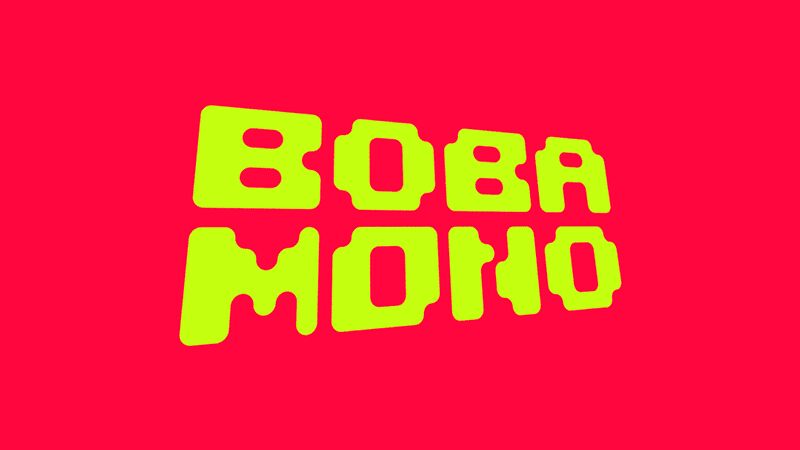
Boba Mono, crafted by renowned designer Matt Wilson, is a captivating display font with a digital touch. Its bold weight and extra-expanded width make it perfect for projects that demand attention and impact. Whether it's eye-catching logos, futuristic video game titles, or tech-themed branding materials, Boba Mono elevates any creative venture into the stunning digital realm. Embrace the power of this unique typeface to captivate audiences and leave a lasting impression.
Includes A-Z in all caps (with variations in place of lowercase characters), punctuation, common glyphs, and most accents.
Boba Mono